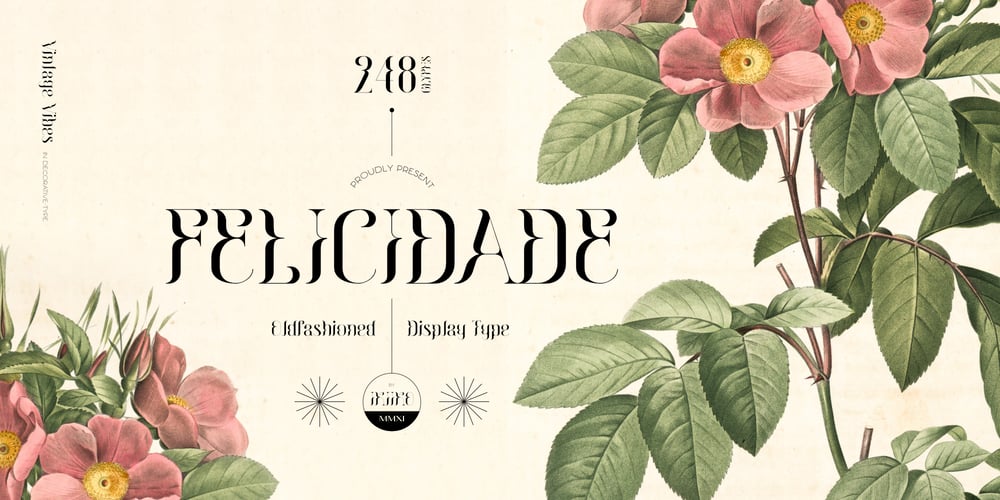
Felicidade
Felicidade font
Felicidade Font Family was designed by Andhika Pradana and published by IKIIKOWRK. Felicidade contains 1 styles and family package options. Introducing Felicidade – Oldfashioned Typeface, created by ikiiko.A classy decorative type with vintage touch. This typeface is perfect for an luxury brand logo, books cover, ancient or vintage product, packaging design, magazine header, poster, quotes, and so much more.What’s included? Uppercase & Lowercase Number & Punctuation Multilingual Support Works on PC & Mac Enjoy our font and if you have any questions, you can contact us by email : ikiikowrk@gmail.com